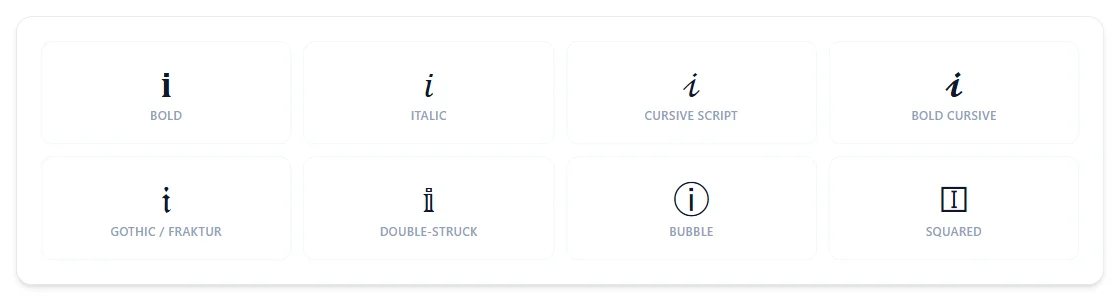
Letter I in Fancy Font
Every fancy font style rendered for just the letter I, so you can compare them side by side before picking one for an initial, a logo, or a single-character tag.
The Letter I in Every Style
The letter I rendered in bold, italic, cursive script, bold cursive, gothic/fraktur, double-struck, bubble, and squared styles
I's Fraktur form (ℑ) is a genuine math symbol on loan — it's used for the imaginary part of a complex number — and I is also one of the letters that stays visually identical when flipped upside down.
Why does the Fraktur I look like a math symbol?
It is one — ℑ denotes the imaginary part of a complex number, and Unicode's Fraktur I reuses that exact character.
Does I look the same upside down?
Yes — I is symmetrical enough that rotating it 180 degrees produces the same shape.